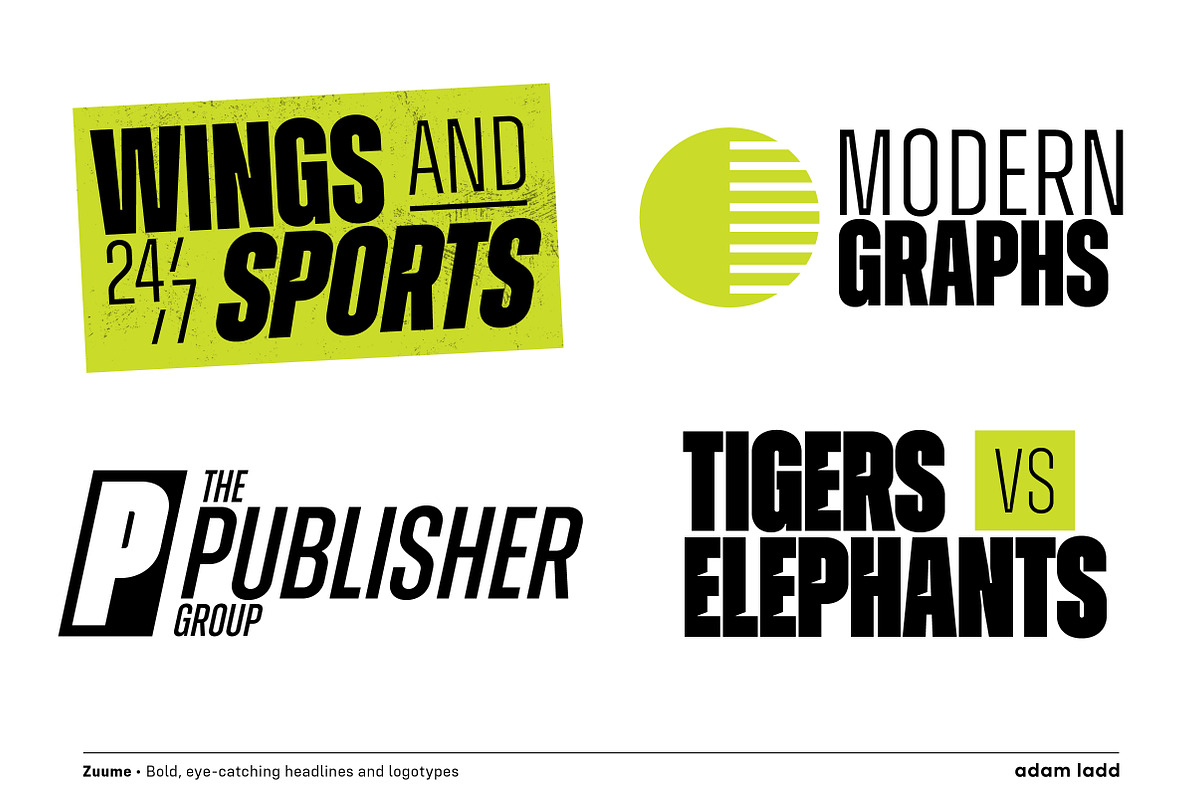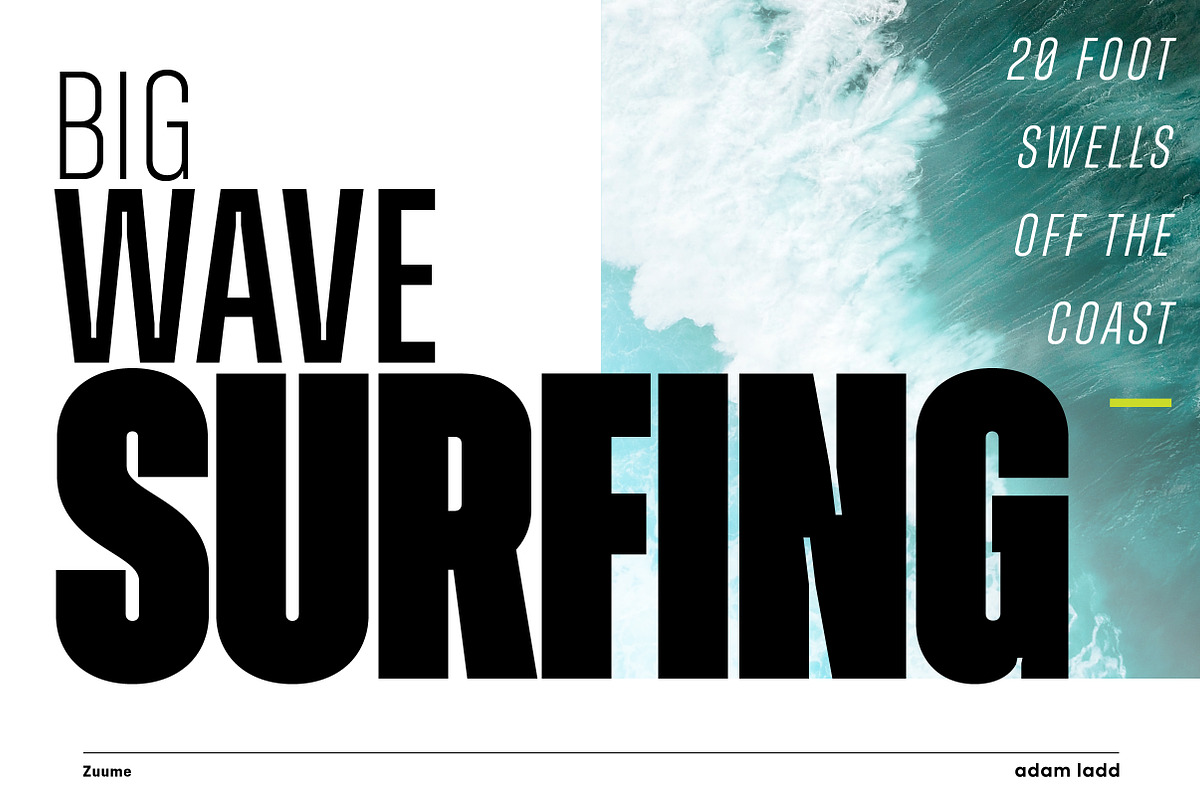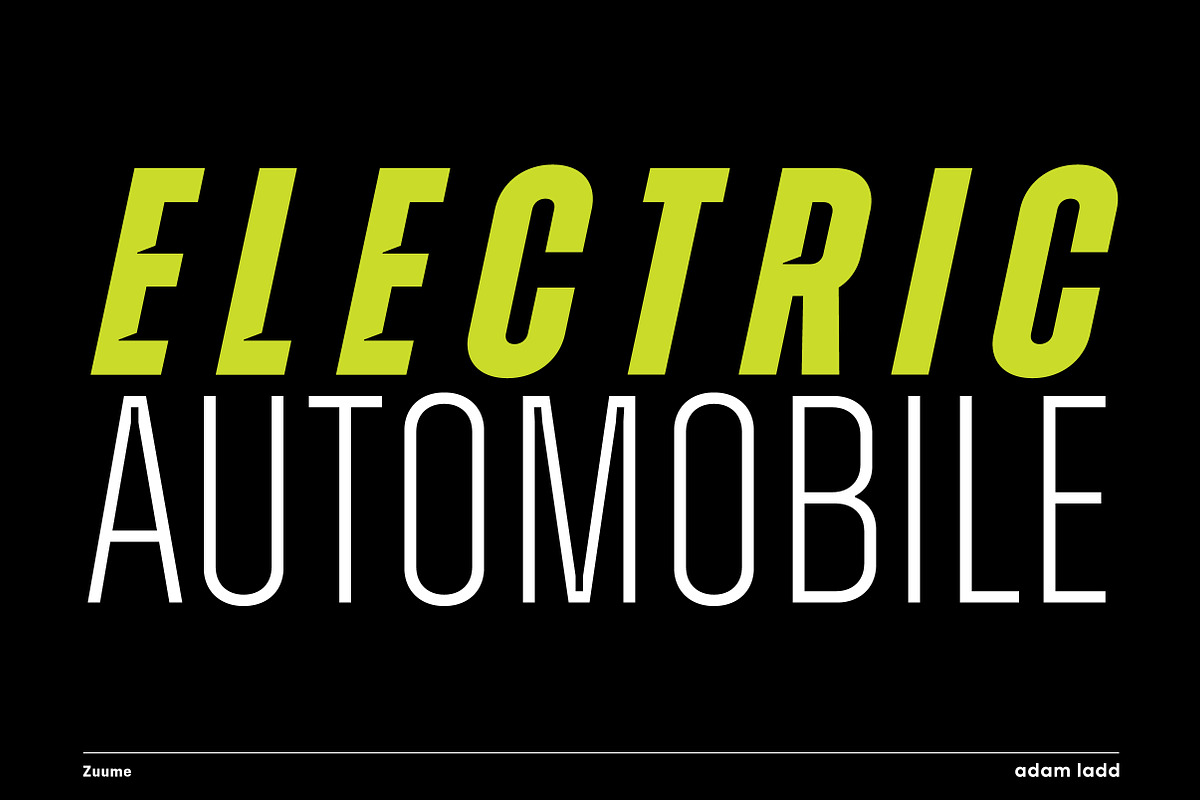
Zuume Font
Zuume is a high-impact, condensed display font family designed for maximum visual punch. Featuring both a standard and alternate Zuume Cut version, it offers multiple weights and italics to suit a variety of bold design needs.
Lighter weights provide a sharp, technical feel, while the heavier, blacker weights are ideal for tight spacing and stacked layouts. A defining characteristic of this all-caps typeface is its notched and extended ink traps, enhancing both functionality and aesthetic appeal.
Ideal for headlines, branding, packaging, magazines, sports, logos, and more, Zuume’s sturdy and aggressive style ensures your designs command attention.
• Two Font Families: Standard & Zuume Cut with dynamic sliced elements
• Multiple Weights & Italics for versatility
• All Caps Design for strong, impactful typography
• Pre-Designed Catchwords for added texture
• Stylistic Alternates & Arrow Glyphs for customization
• Extensive Multilingual Support (100+ languages, 600 glyphs)